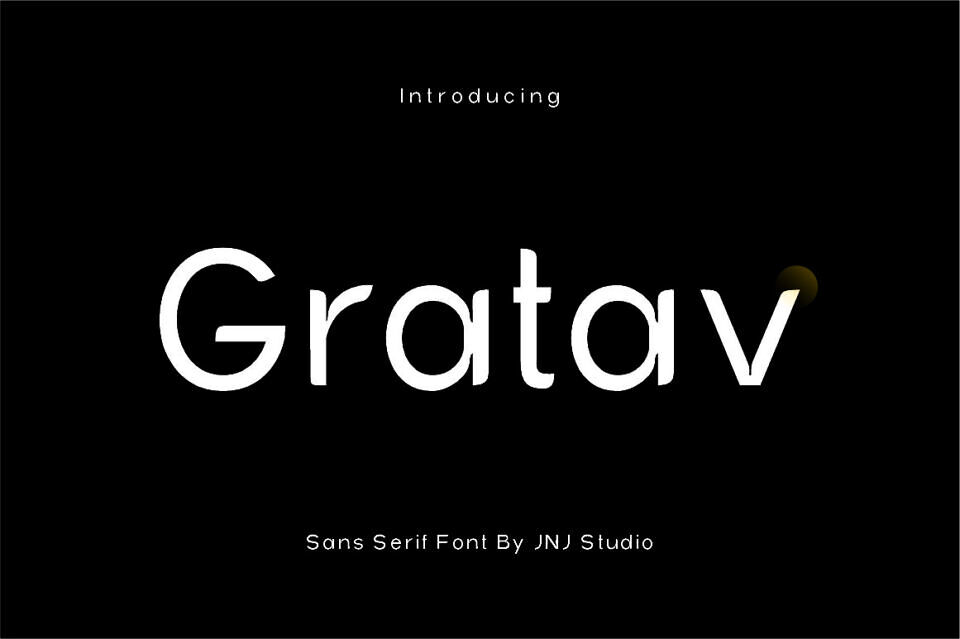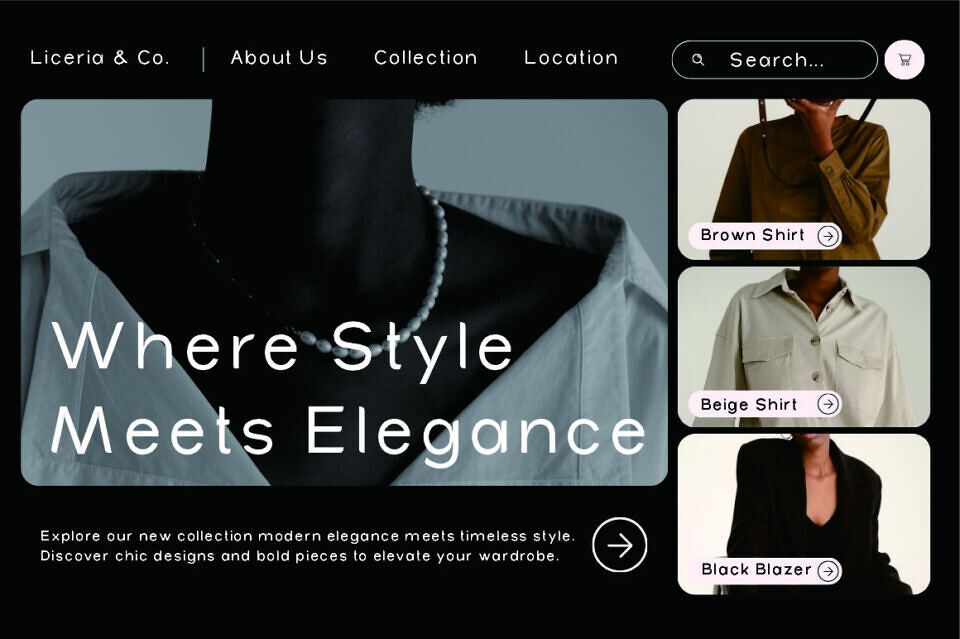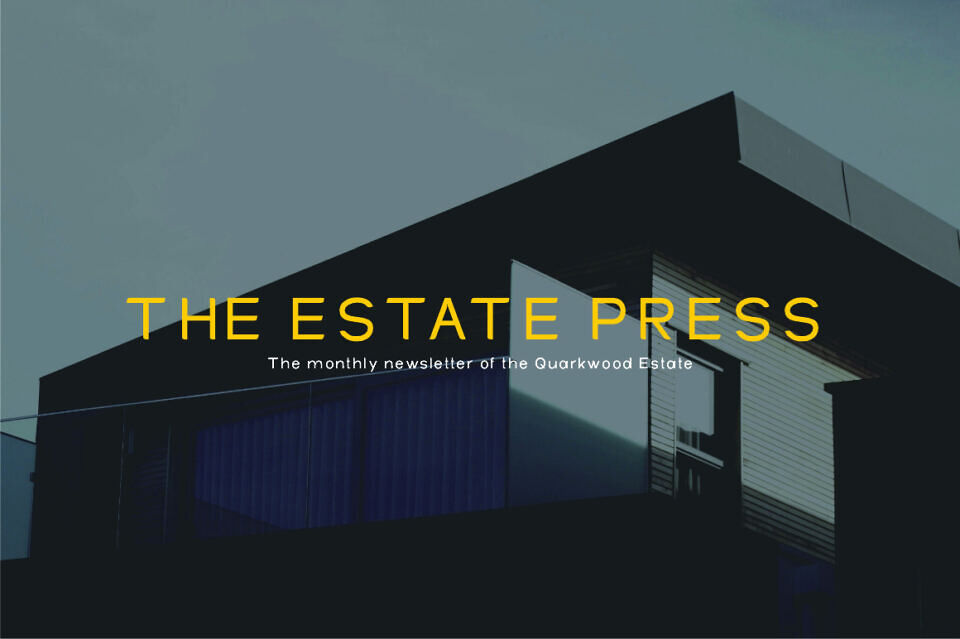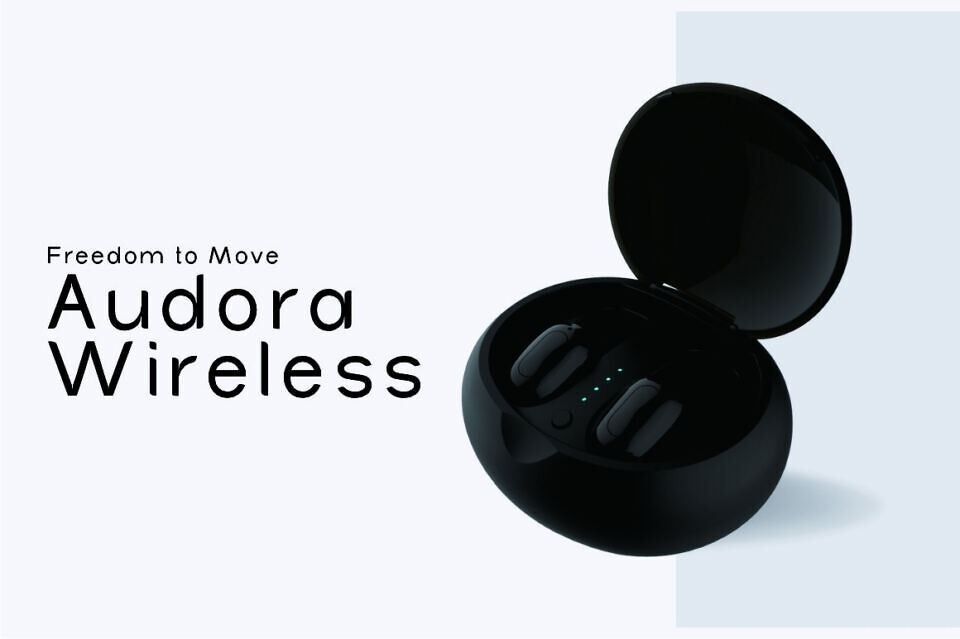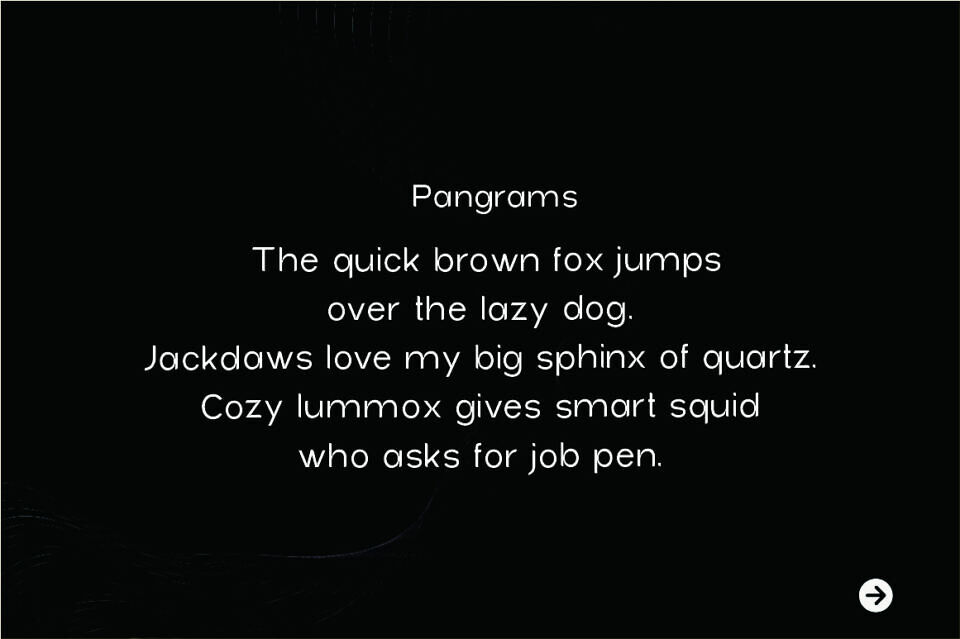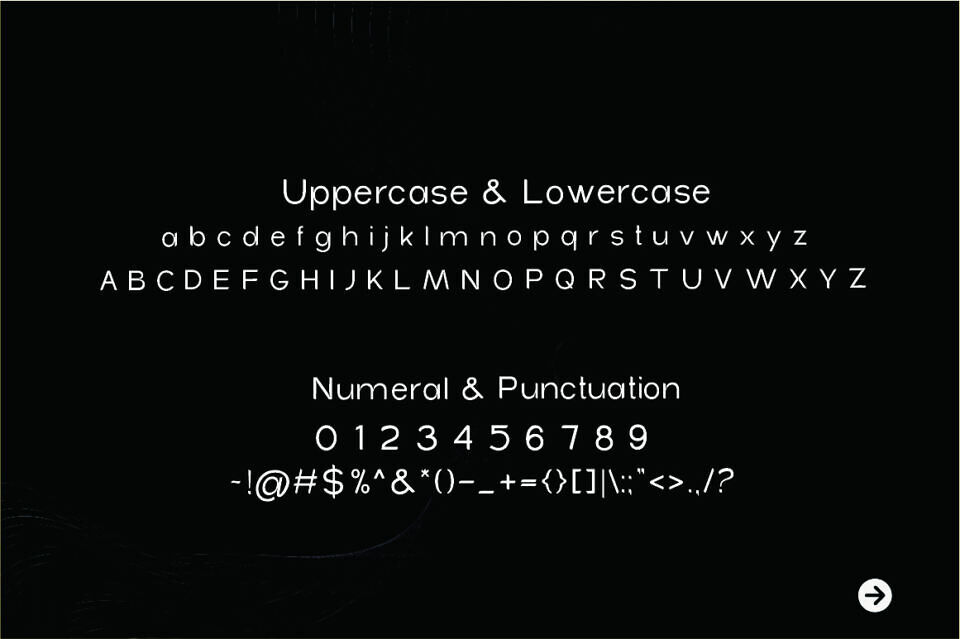
Gratav is a modern sans serif typeface built on clarity, strength, and balance. Designed with clean geometry and subtle humanist touches, Gratav delivers a contemporary feel that remains highly readable across digital and print media.
The letterforms are crafted with consistent proportions, smooth curves, and confident strokes, giving Gratav a bold yet approachable personality. Its neutral character makes it incredibly versatile—perfect for branding, logos, UI/UX design, editorial layouts, posters, and corporate identities.
Gratav stands out through its refined simplicity: minimal, precise, and timeless. Whether used in headlines or body text, this typeface brings a professional and modern voice to any visual project.